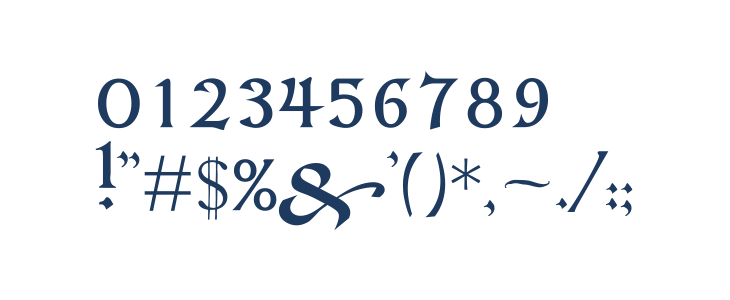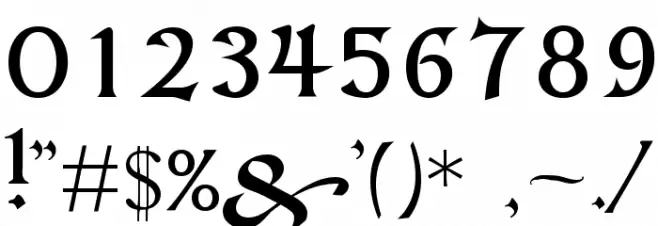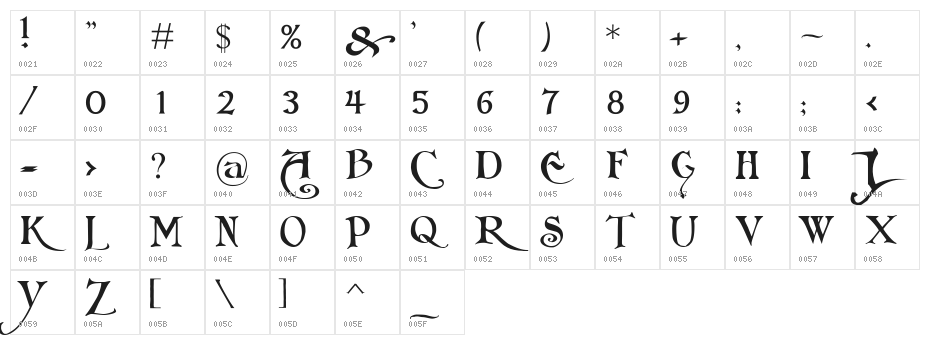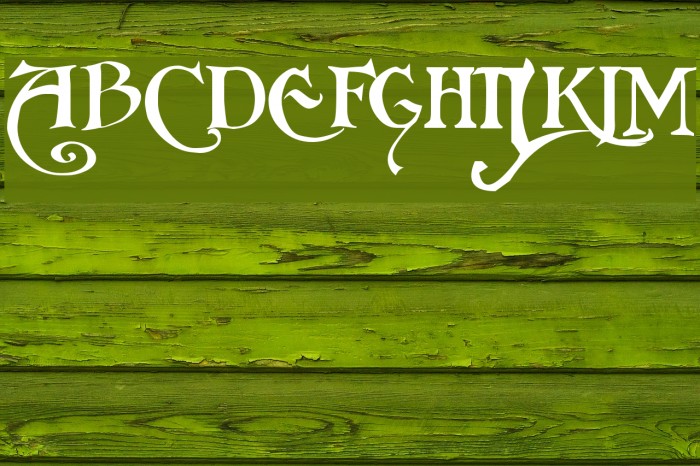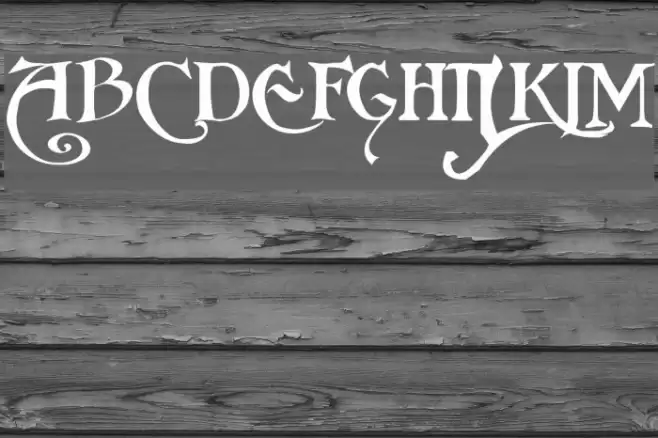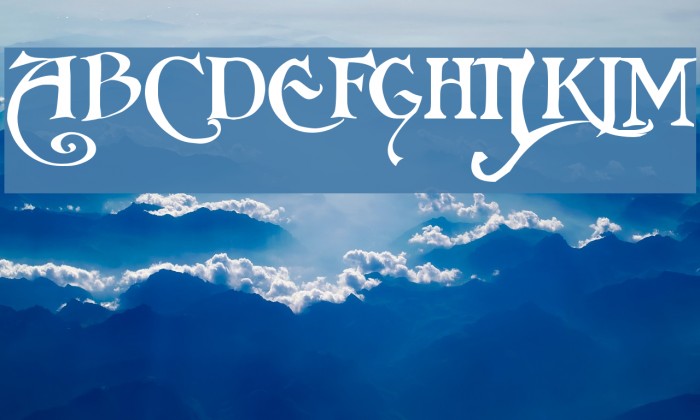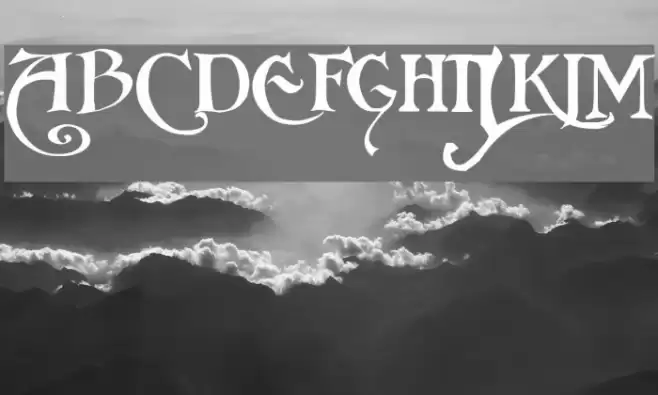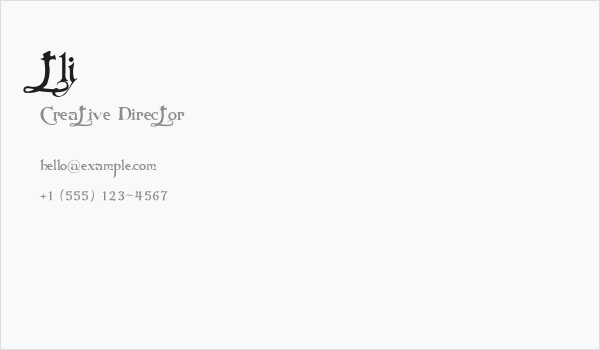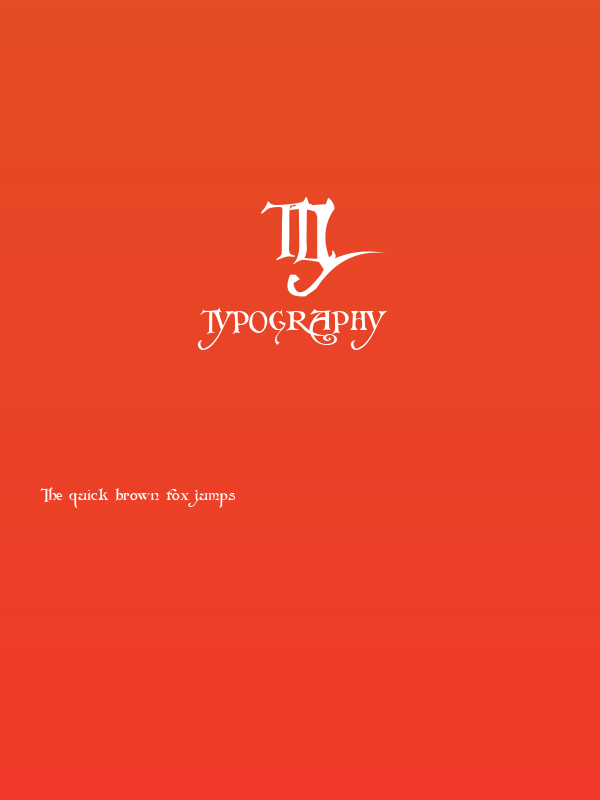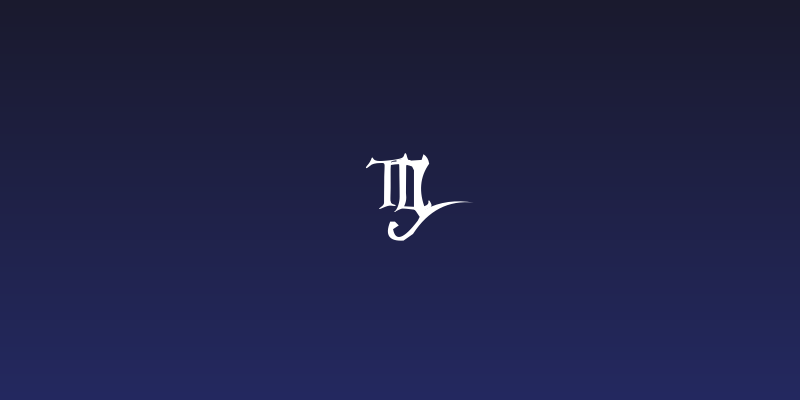
tlj Font
tlj Description
This font exhibits a dramatic and ornate style, characterized by its intricate swirls and flourishes. The uppercase letters are particularly elaborate, with exaggerated curves and decorative elements that give a sense of grandeur and elegance. The lowercase letters maintain a consistent style, with some characters featuring unique tails and loops that add to the overall aesthetic. The numerals are bold and distinct, matching the decorative nature of the alphabet. Special characters are equally ornate, making this font suitable for projects that require a touch of sophistication and flair.